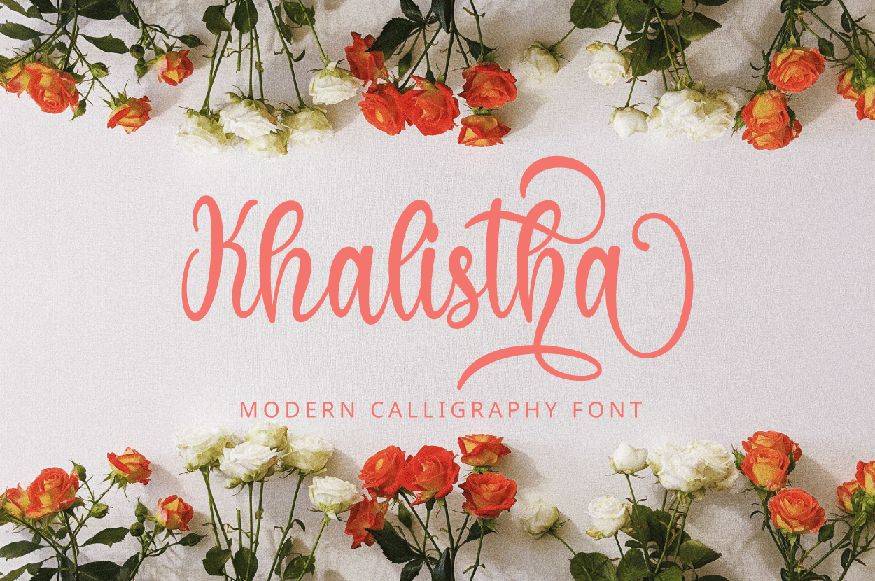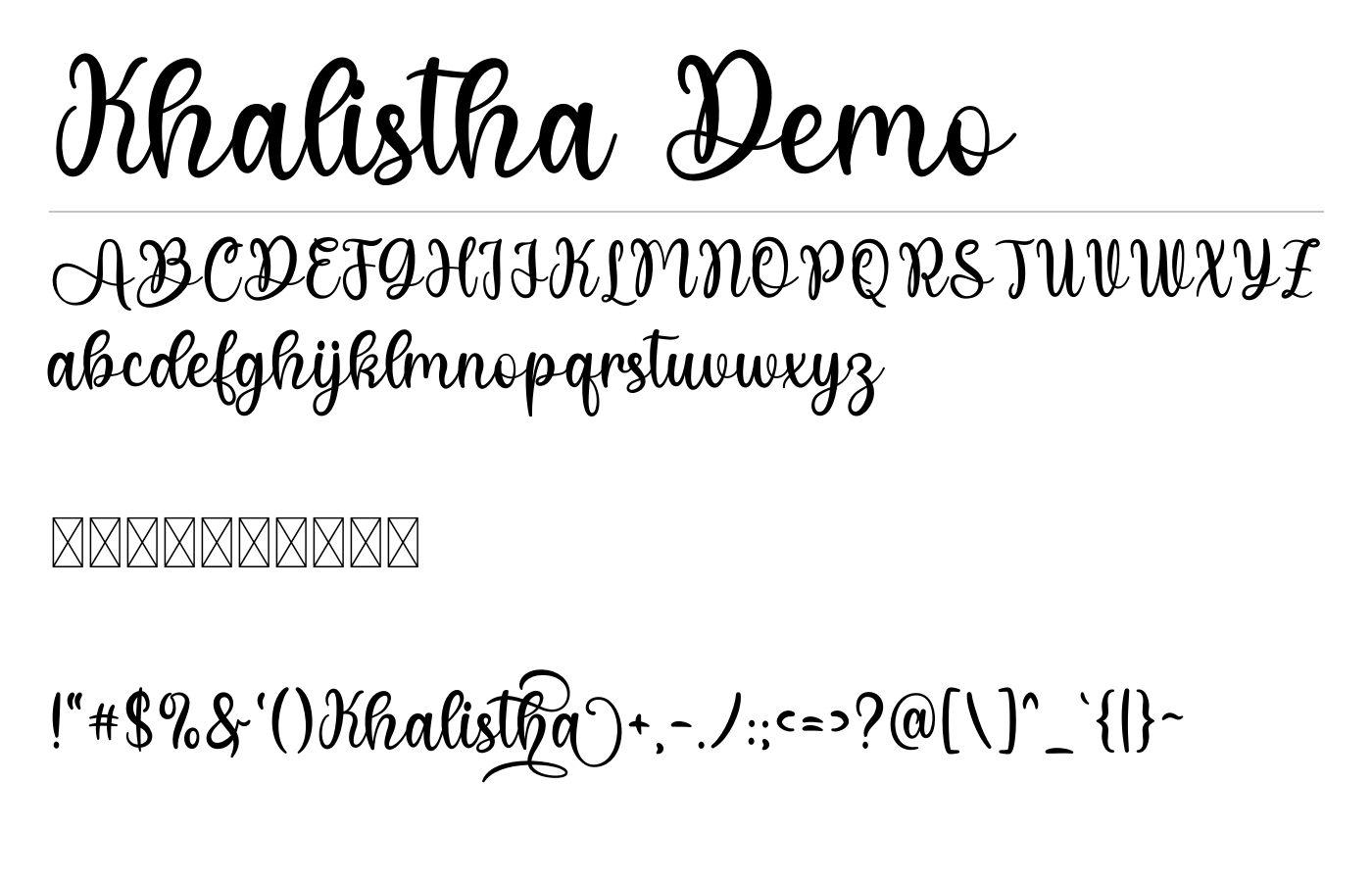
Khalistha is a charming script font with a smooth and elegant flow, featuring medium weight strokes and delicate, rounded terminals that create a friendly yet refined appearance. Its lively letterforms and subtle flourishes make it perfect for invitations, branding, and projects seeking a personal, sophisticated touch. This font works especially well in decorative contexts where a warm, stylish feel is desired.
Khalistha Font
About Khalistha Font
| Font family | Khalistha Font |
| Designer | Letter art Studio |